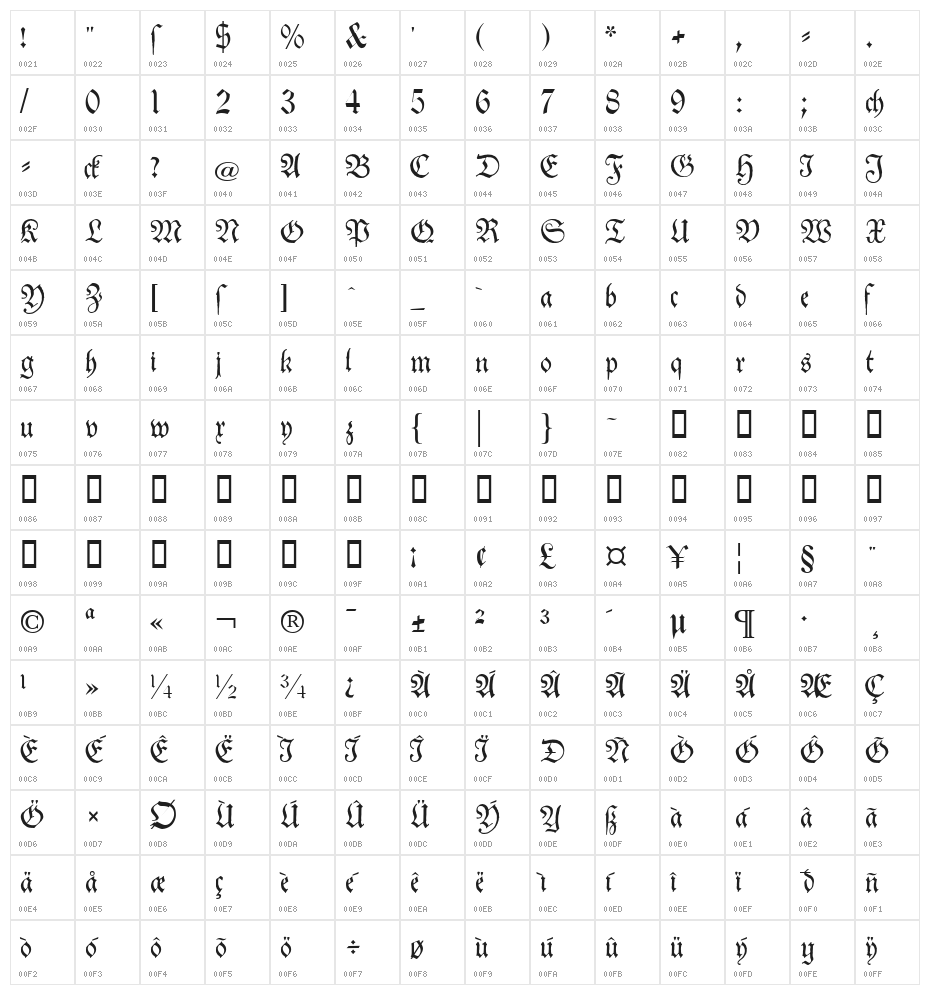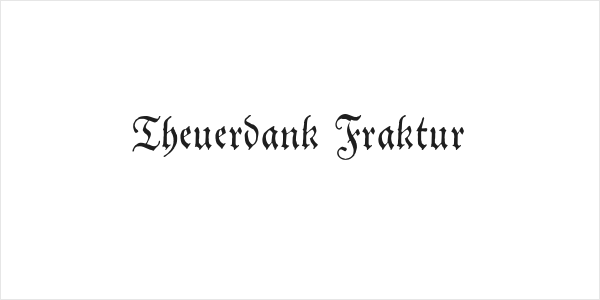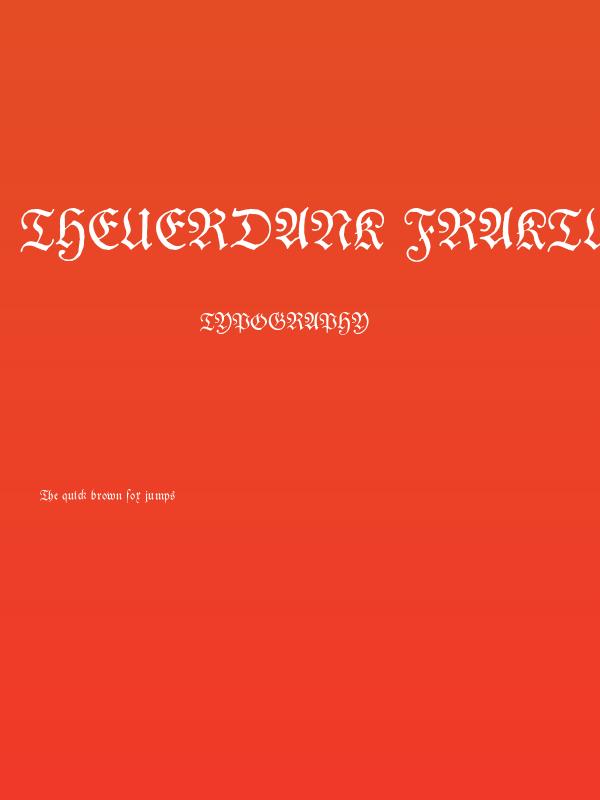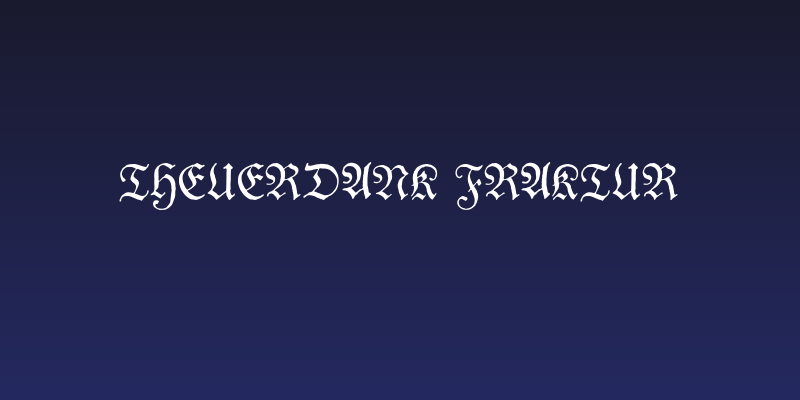
Theuerdank Fraktur Font
Theuerdank Fraktur Description
This font exhibits a traditional and ornate style, reminiscent of historical script used in medieval manuscripts. The characters are intricately designed with sharp, angular strokes and elaborate curves, giving it a distinct Gothic appearance. The uppercase letters are particularly decorative, featuring flourishes and embellishments that enhance their visual impact. The lowercase letters maintain a consistent style, with a slightly more subdued ornamentation. The numerals are bold and clear, matching the overall aesthetic of the font. Special characters are equally detailed, ensuring a cohesive look across all glyphs.